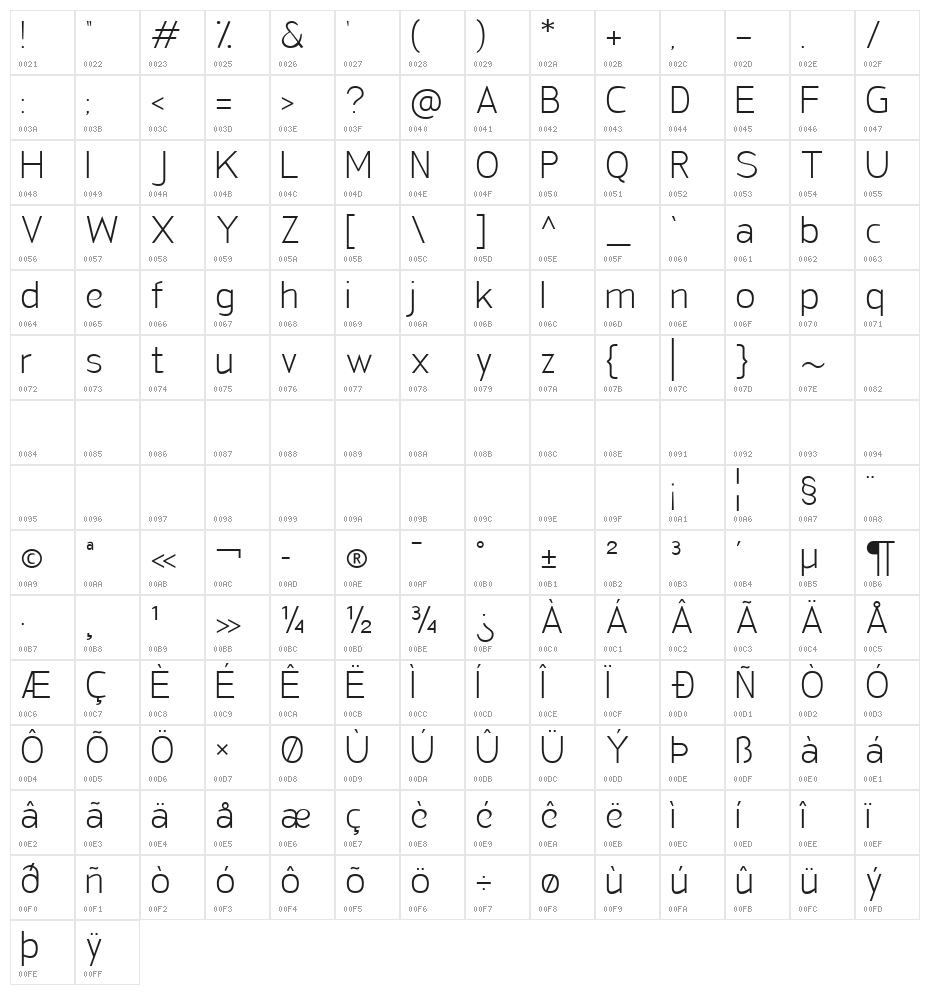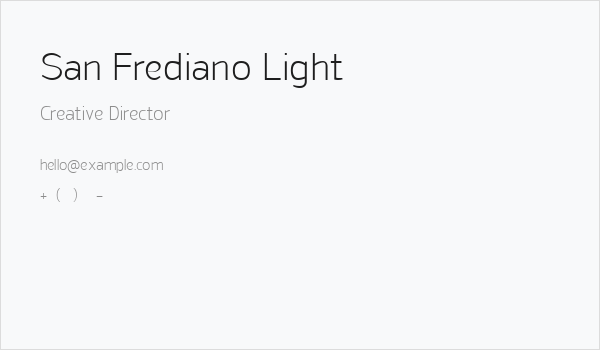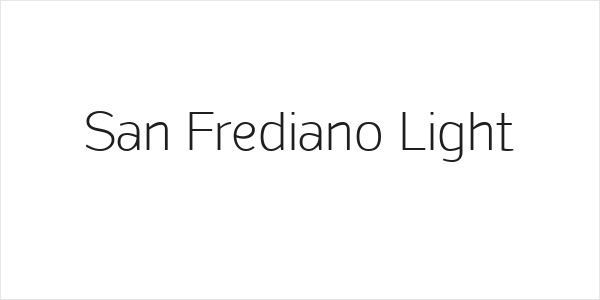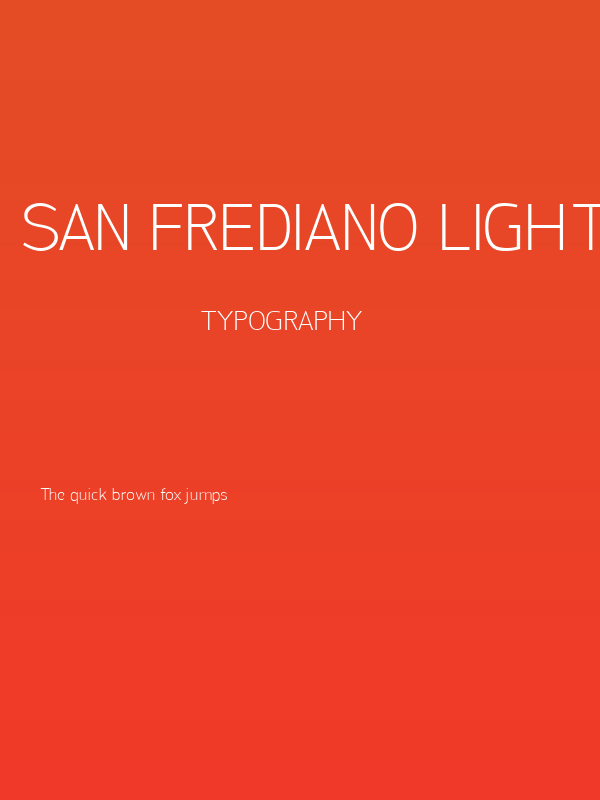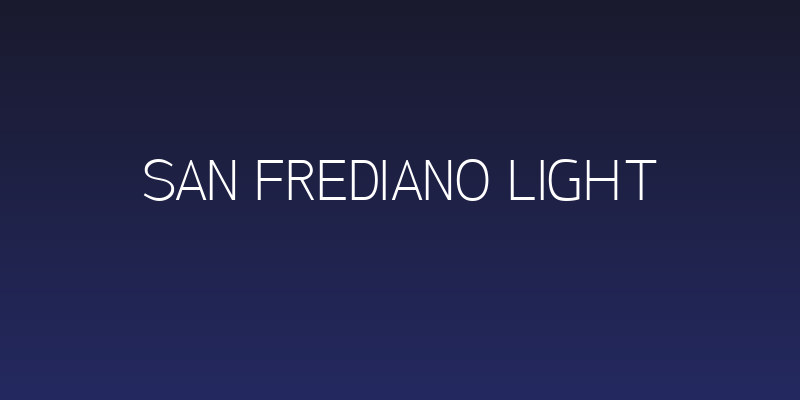
San Frediano Light Font
San Frediano Light Description
This font exhibits a clean and modern sans-serif style, characterized by its light weight and minimalistic design. The characters are well-proportioned with a consistent stroke width, providing a sleek and contemporary appearance. The uppercase letters are tall and slightly condensed, while the lowercase letters maintain a balanced and open form. The numerals and special characters align seamlessly with the overall aesthetic, ensuring readability and versatility. Its simplicity and elegance make it suitable for a wide range of applications, from digital interfaces to print media.